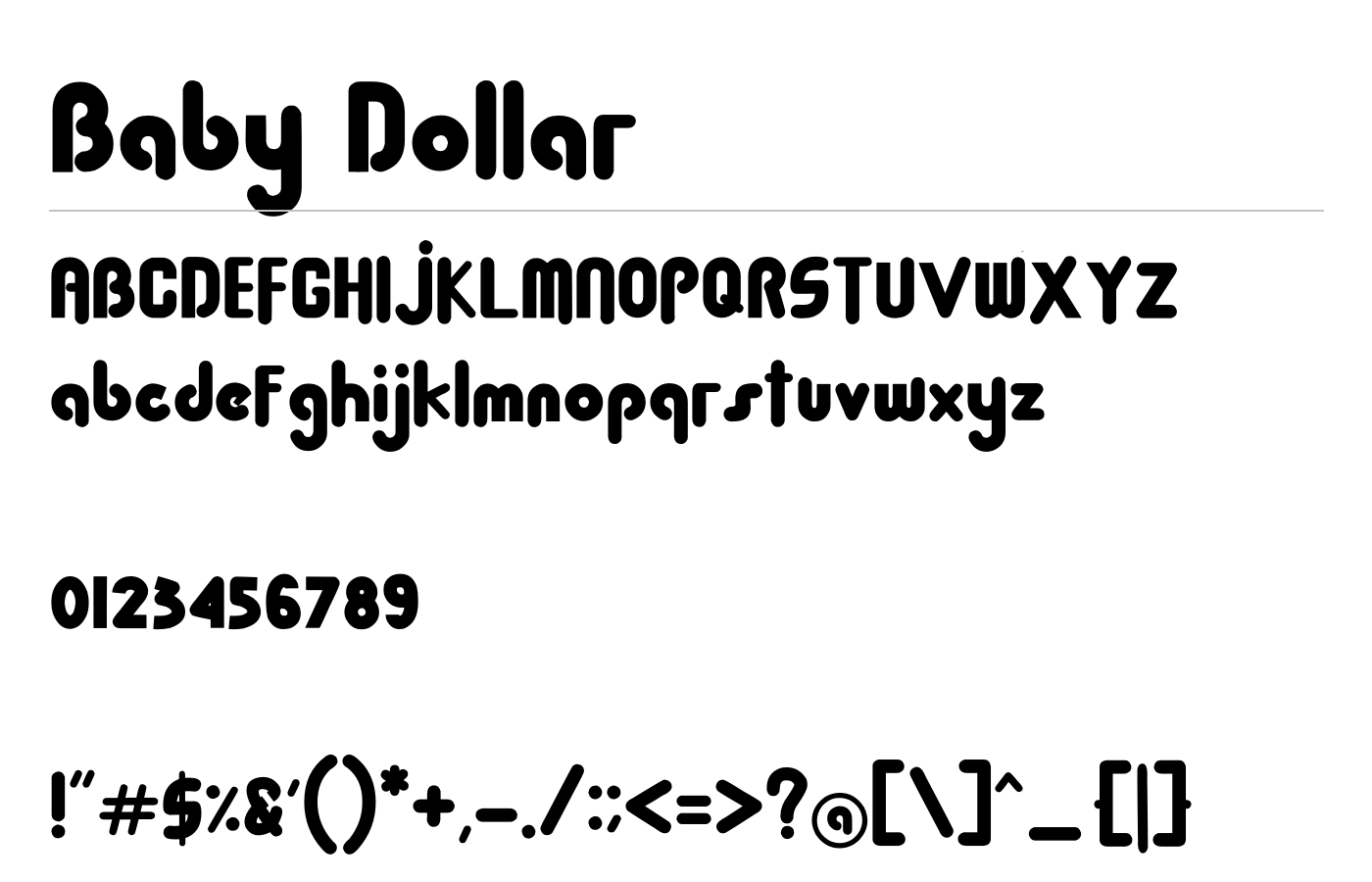
Baby Dollar is a bold, whimsical sans serif font featuring rounded, playful letterforms with a strong, consistent stroke weight and soft curves. Its unique, chunky shapes and high x-height give it a friendly and approachable feel, making it ideal for fun, youthful branding, headlines, or packaging that seeks to grab attention with a lively, modern vibe. This font works best where personality and readability are key in eye-catching display uses.
Baby Dollar Font